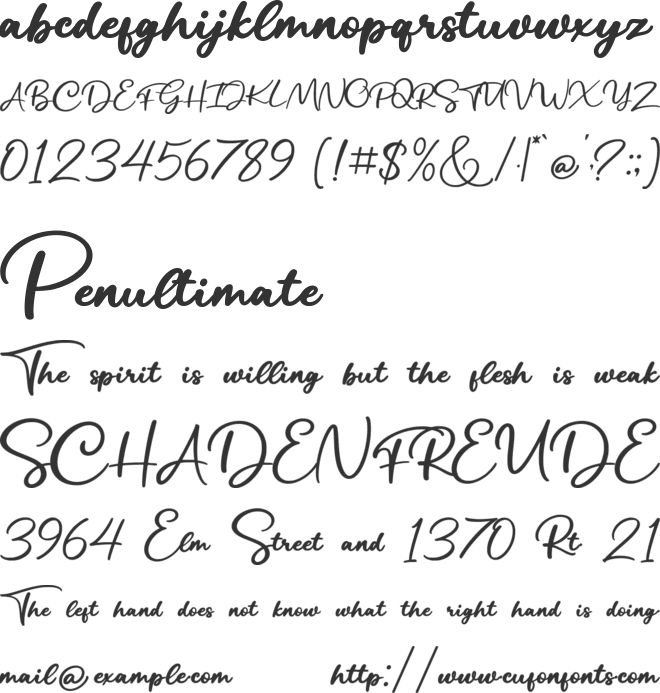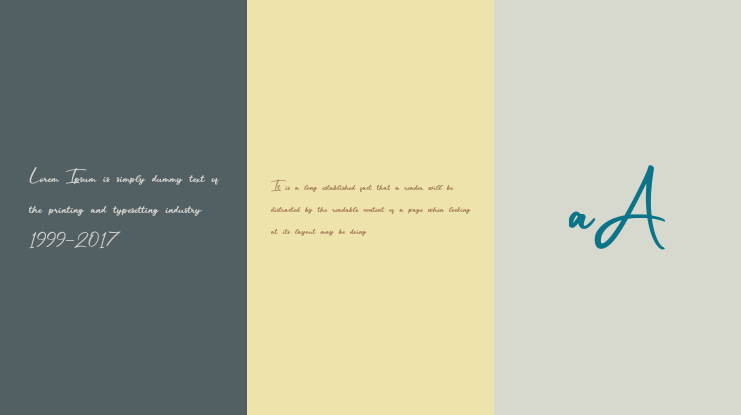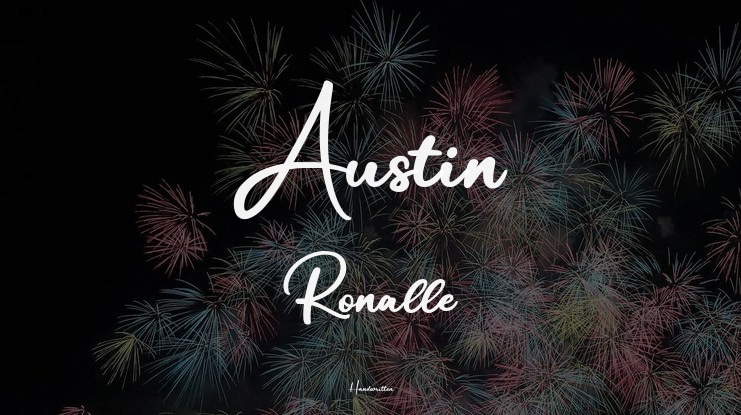
Austin Ronalle Font
INTRODUCING Austin Ronalle Signature Font
Austin Ronalle is a luxurious signature font that flows effortlessly, just like a love letter written by hand.